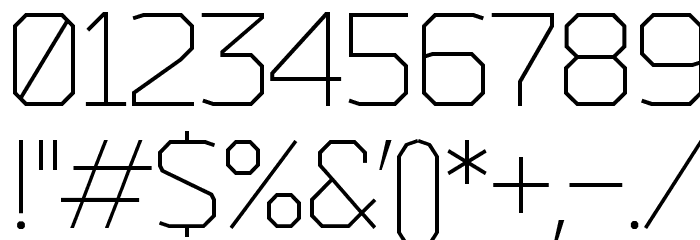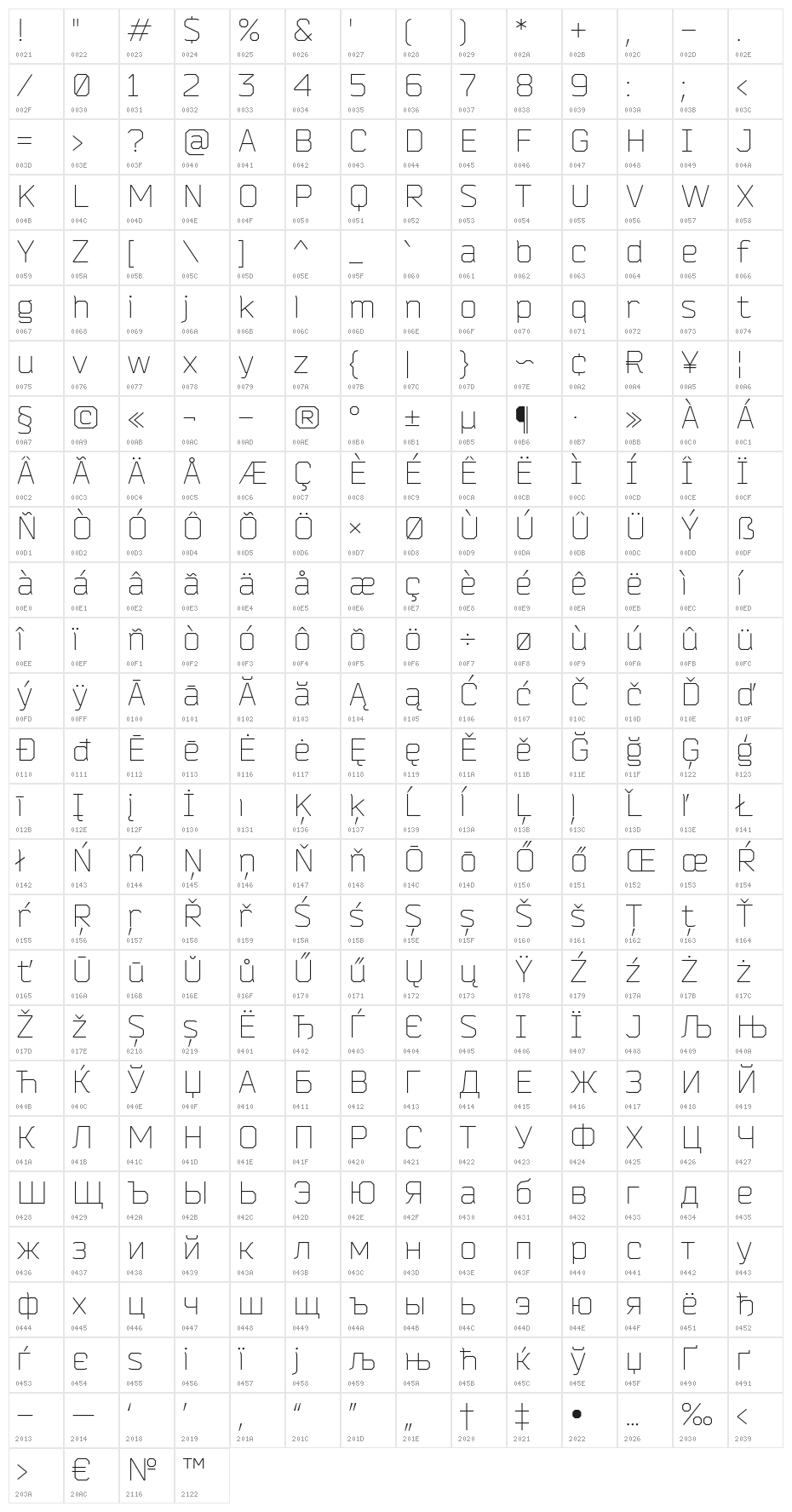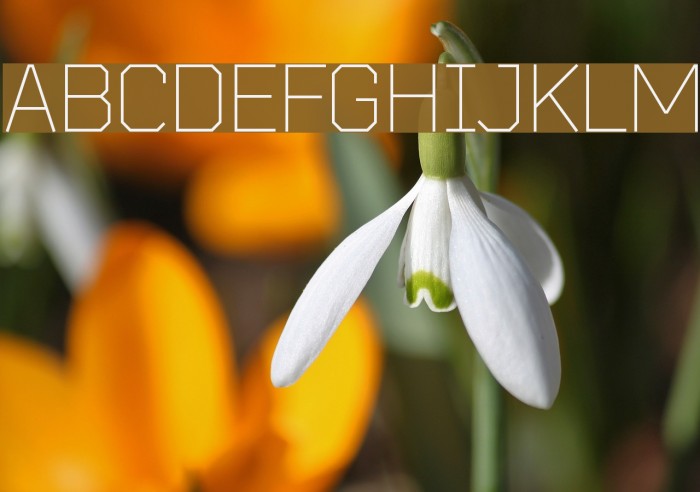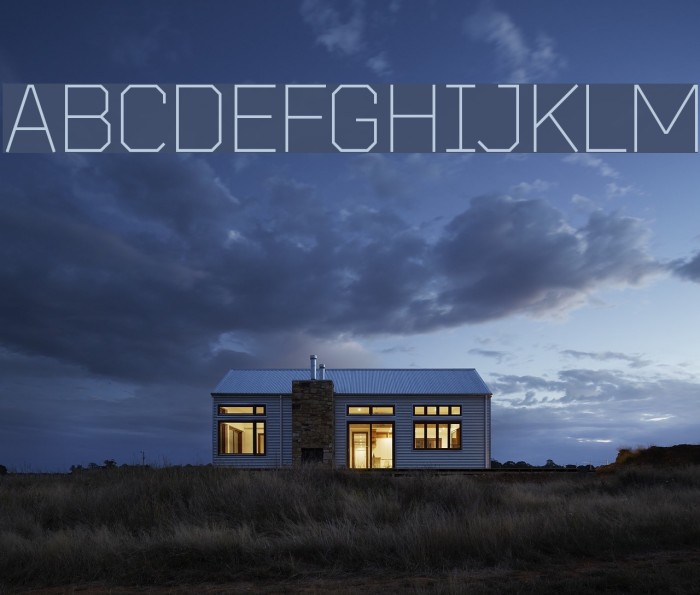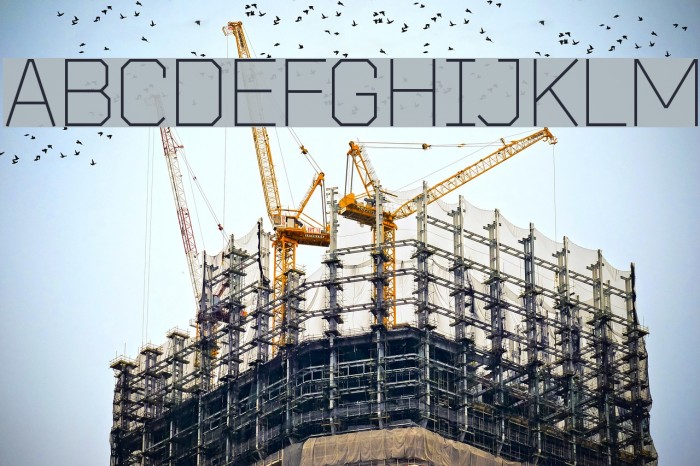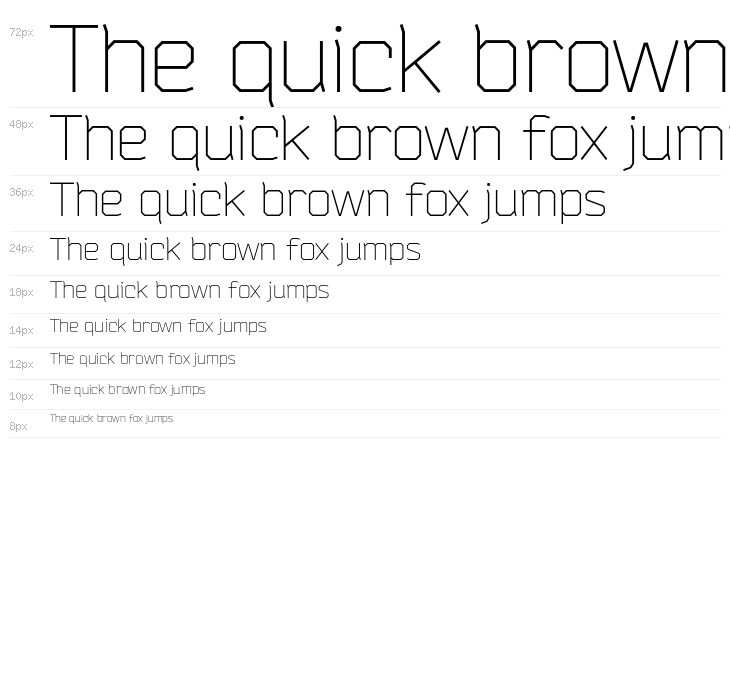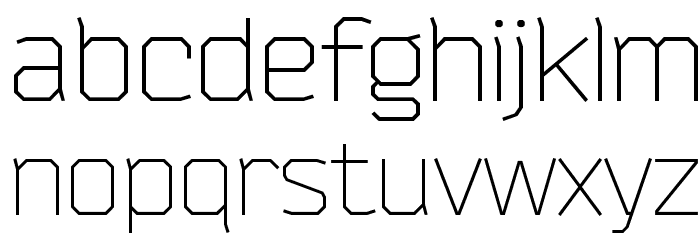
Bender-Light Font
Bender-Light Description
This font features a geometric and modern design with clean, straight lines and sharp angles. It has a futuristic and technical appearance, characterized by its uniform stroke width and minimalistic style. The uppercase and lowercase letters maintain a consistent height, contributing to a cohesive look. The numerals and special characters follow the same design principles, ensuring a harmonious overall appearance. This font's simplicity and clarity make it suitable for a variety of applications where readability and a contemporary aesthetic are desired.